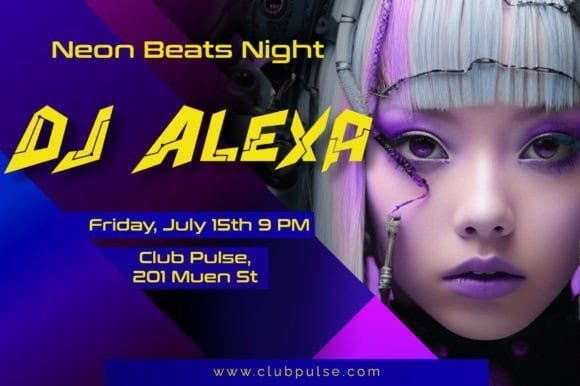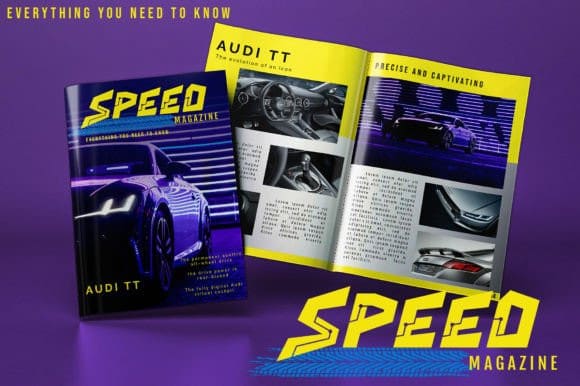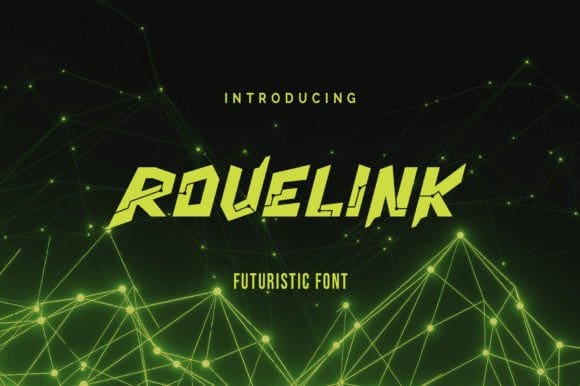
Rovelink Display Font
Rovelink Display Font, a modern display font inspired by futuristic themes. This font seamlessly blends sleek aesthetics with contemporary flair, making it perfect for any design that demands a futuristic touch. Dive into the world of advanced design with Rovelink, elevate your projects with Rovelink cutting-edge style and innovative appeal.